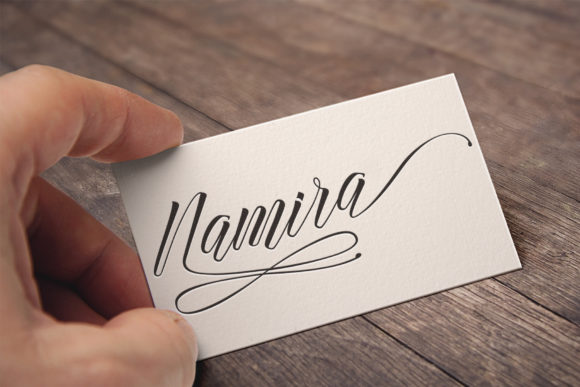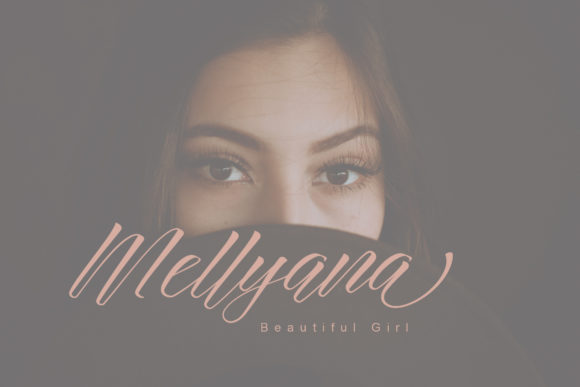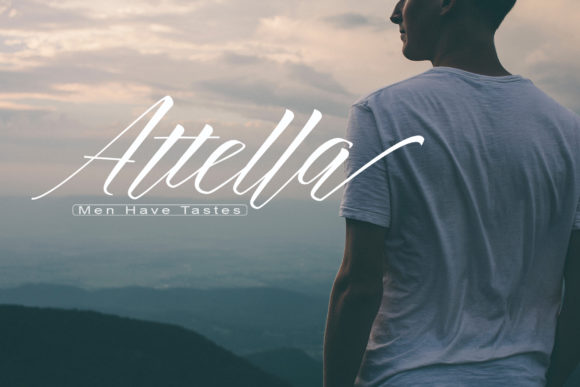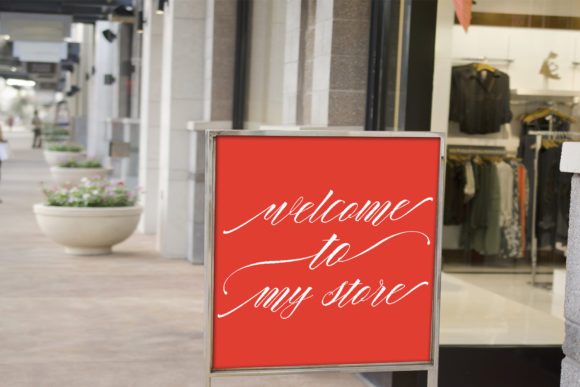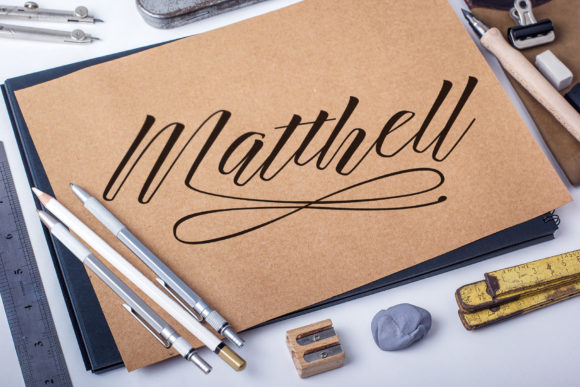
Namitha Font
About Namitha Font
Namitha is a cute and casual handwritten font with an incredibly friendly feel. It features gorgeous swashes and ligatures that make this script incredibly versatile. Whether you’re looking for fonts for Instagram or calligraphy scripts for DIY projects, Namitha will turn any creative idea into a true piece of art!